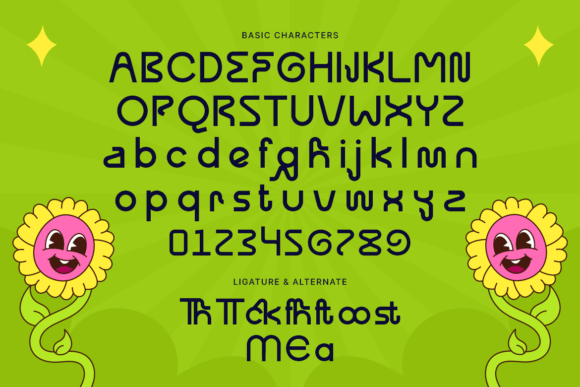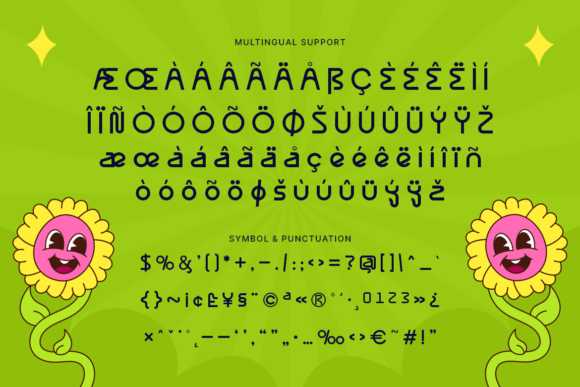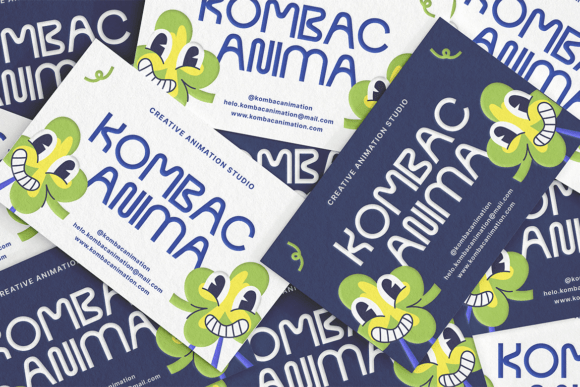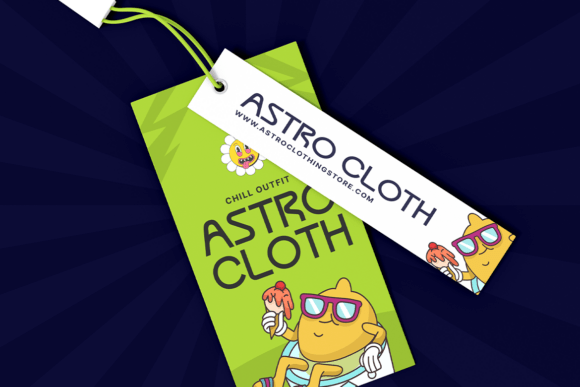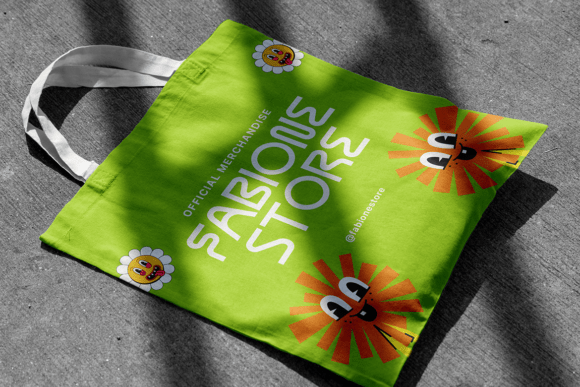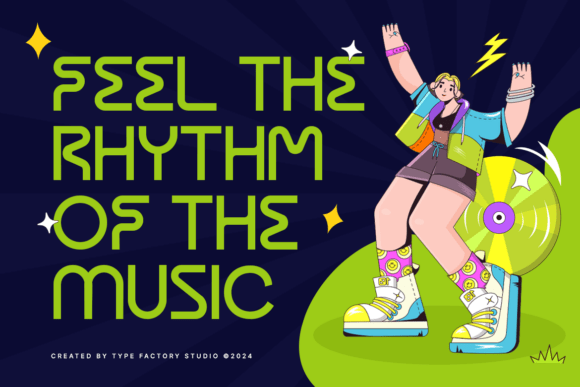
Introduction to Plastean Font
Plastean is a funky display typeface designed with playful curves and smooth rounded strokes.
Each character features a soft, friendly structure with distinctive shapes that create a lively and expressive rhythm The letterforms combine geometric balance with quirky details, making them stand out in bold typographic compositions.